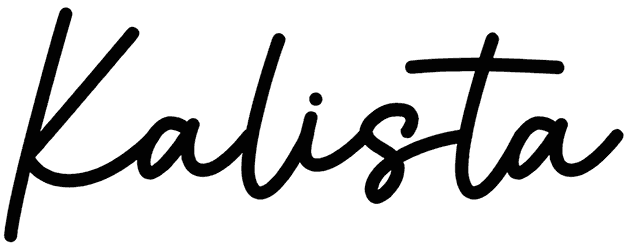
Kalista Font
If you’re a graphic designer looking for a handwritten font to ensure the success of your projects, you’ll be happy to see Kalista.
This script font, which looks both classic and rugged, can add a personal sense to your project and touch the viewer’s innermost feelings. This font is inspired by human handwriting and is a great choice for apparel designs, tattoos, and packaging writing that require a custom aesthetic.